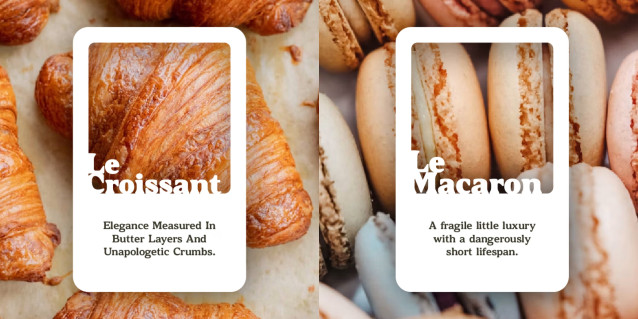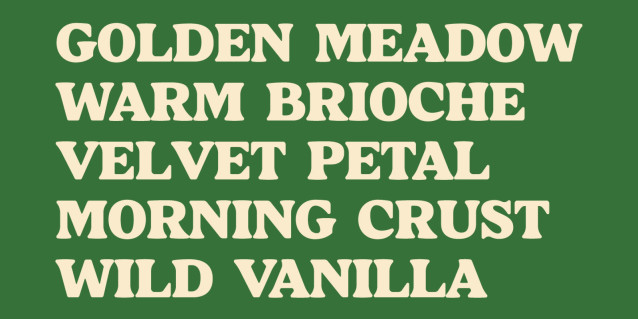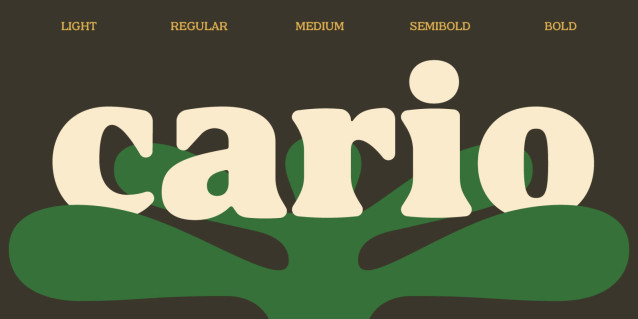
Cario Font
Cario is an approachable display serif that reimagines the soft serif aesthetic through clean construction and subtle, playful nuances. Instead of leaning into Art Nouveau style, it using the modern serif font as a foundation to enhance legibility and be more versatile.
With six weights running from Regular up to Black, Cario handles everything from tight packaging copy to punchy headline, delivering a design that feels steady, functional, and effortless in real-world layouts.
| Designer Name: | Habitype |